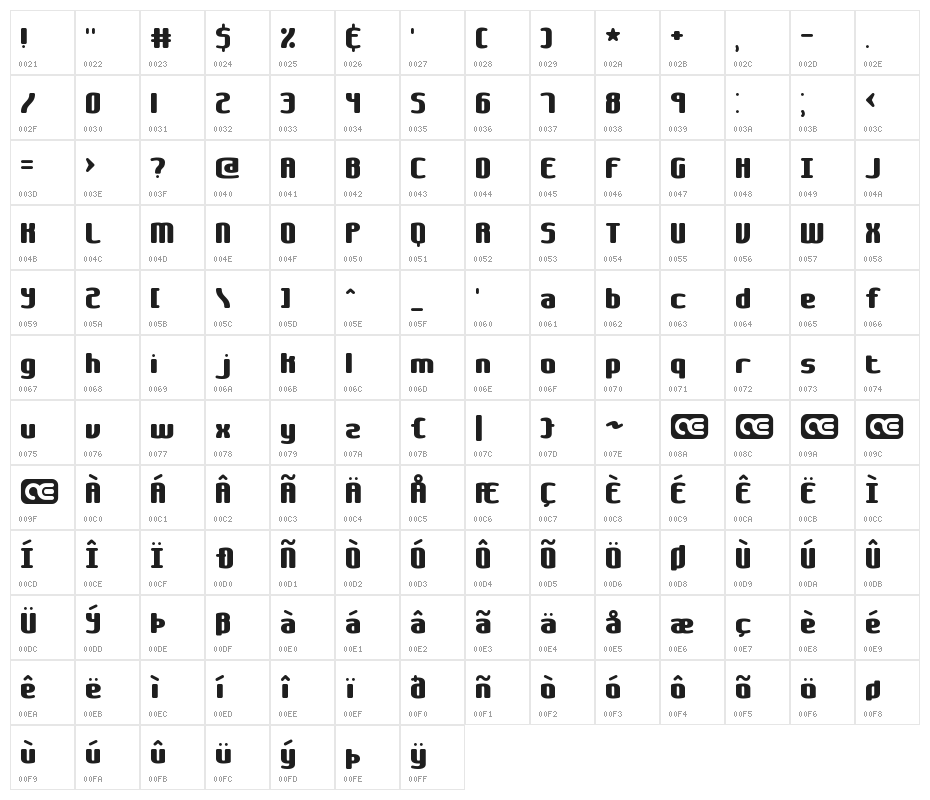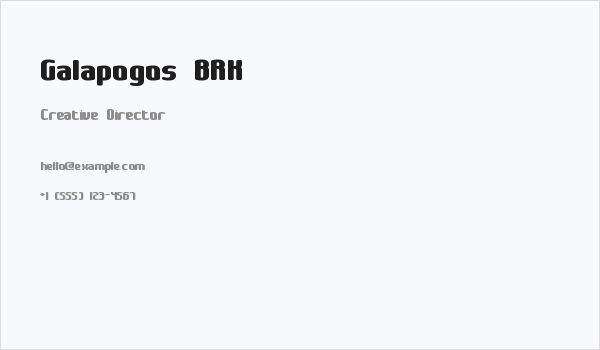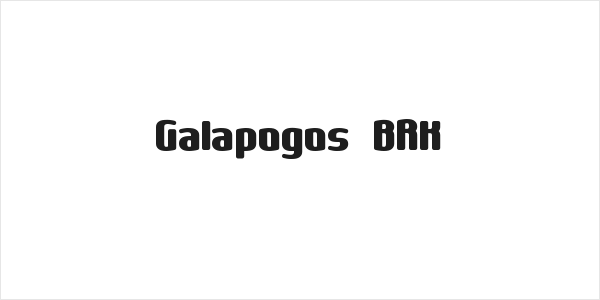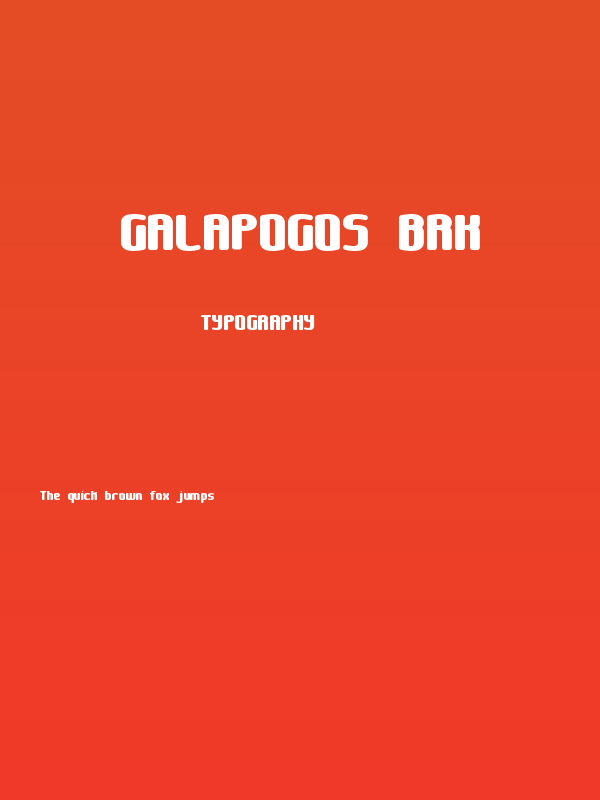
Galapogos BRK Font
Galapogos BRK Description
This font features a bold and rounded style with a playful and modern appearance. The characters are uniformly thick, giving it a strong presence, while the rounded edges soften its overall look. The uppercase and lowercase letters maintain a consistent width, contributing to a cohesive design. The numerals and special characters follow the same stylistic cues, ensuring uniformity across all glyphs. This font's unique style makes it suitable for projects that require a friendly and approachable aesthetic.
| Proposed Projects | Ideal for children's books, playful branding, posters, and creative advertising. |